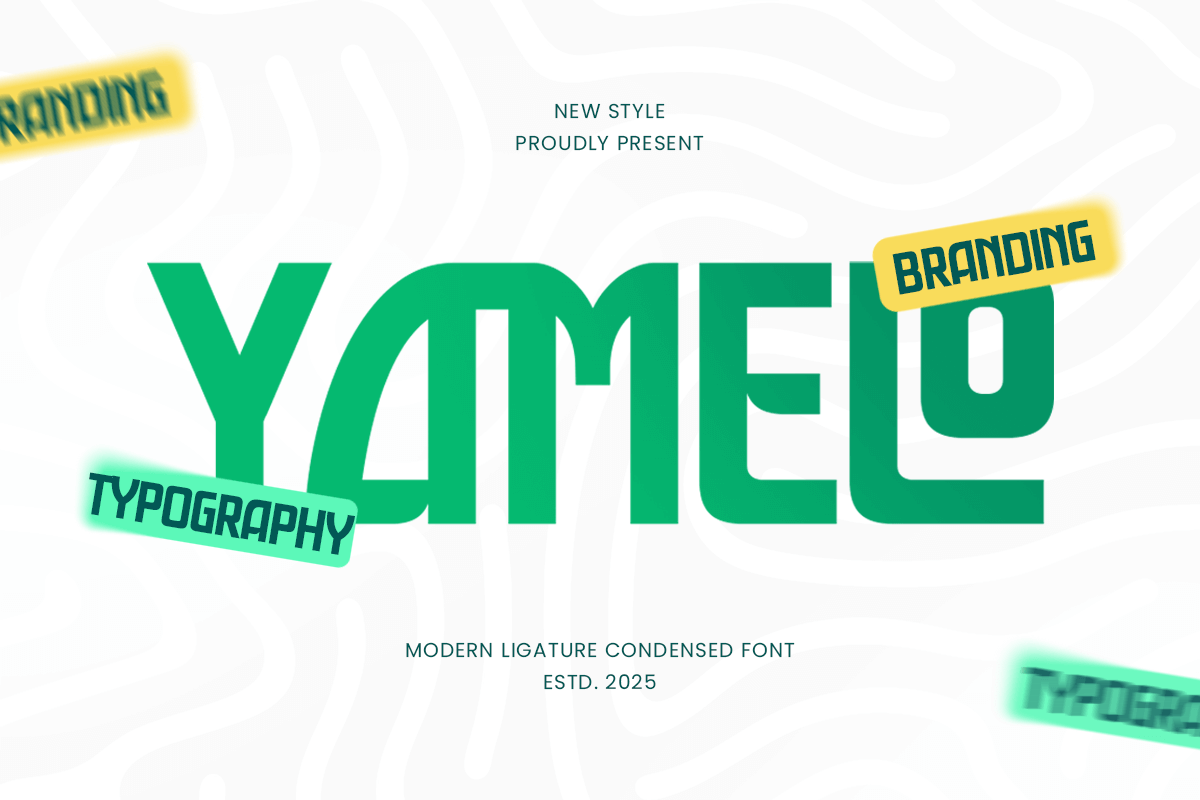
Yamelo
-Modern Ligature Condensed FontYamelo - Modern Ligature Condensed Font
Yamelo is a modern condensed font designed for corporate branding, business presentations, and tech-focused designs. Its sharp structure and professional tone make it a perfect fit for logos, UI headers, company profiles, digital startups, and marketing assets.
Built with stylish ligatures and compact spacing, Yamelo strikes a balance between clarity and sophistication. It’s versatile enough for app interfaces, pitch decks, editorial layouts, and professional print materials.
If you’re aiming for a sharp, innovative, and credible look, Yamelo is your go-to font for modern business identity.
Yamelo – Modern Ligature Condensed Font Features
Compact and professional condensed style
Great for tech companies, business brands, and corporate visuals
Stylish ligatures for added character and distinction
Ready with Alternate & Ligature Characters
Punctuation, numbers, and symbols included
Uppercase and lowercase letters
OpenType features for enhanced functionality
Shape a bold business identity with Yamelo — where professionalism meets modern design.